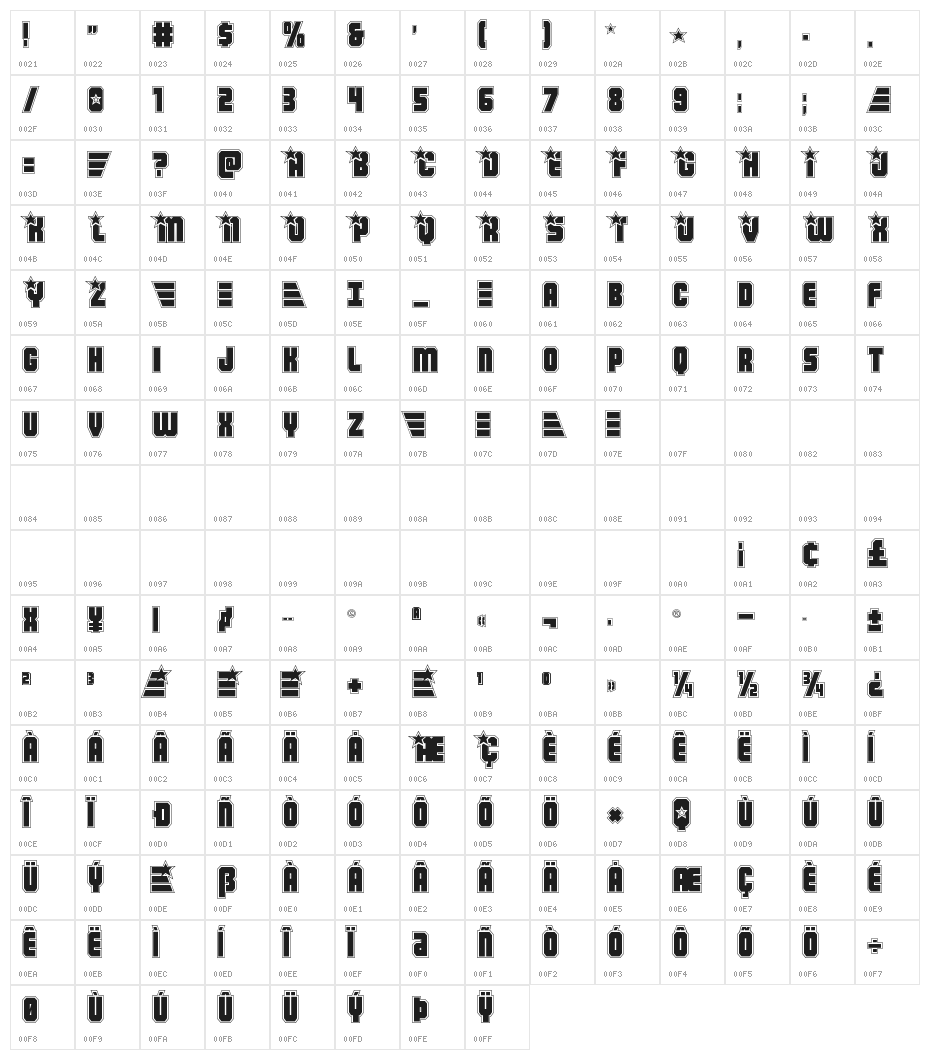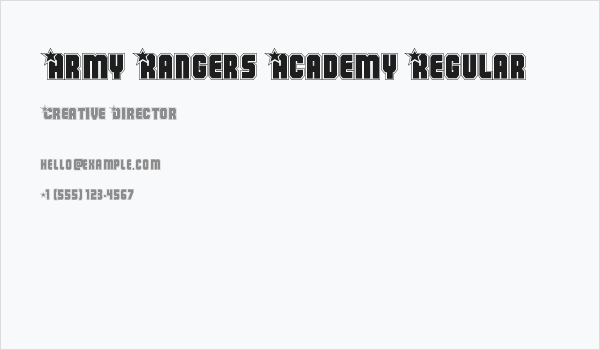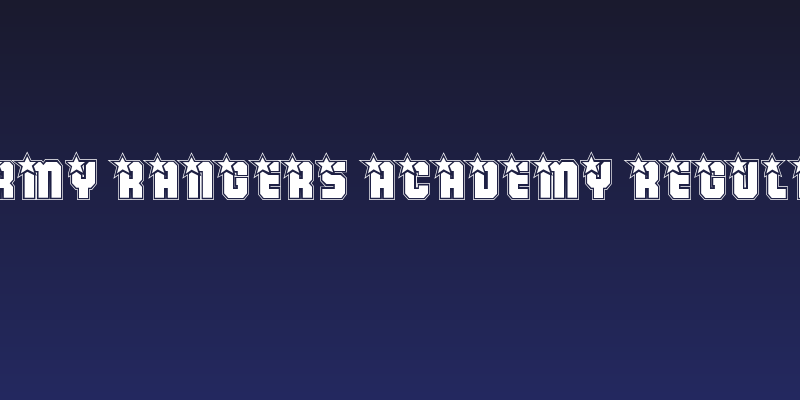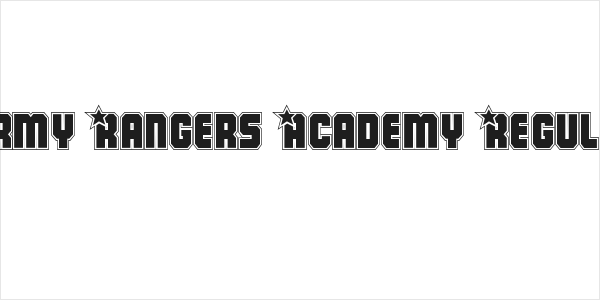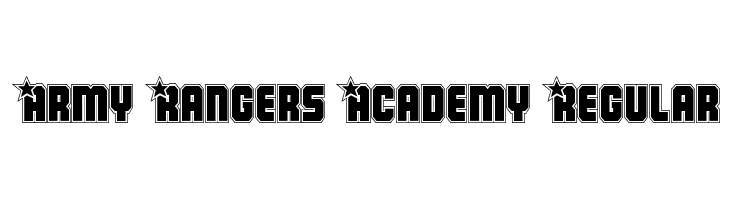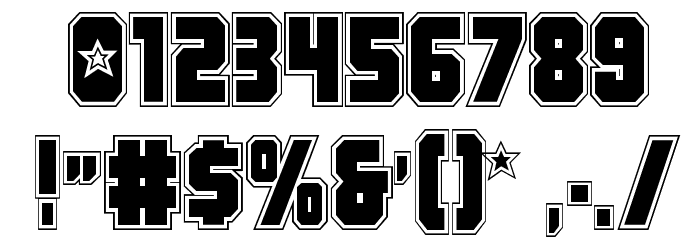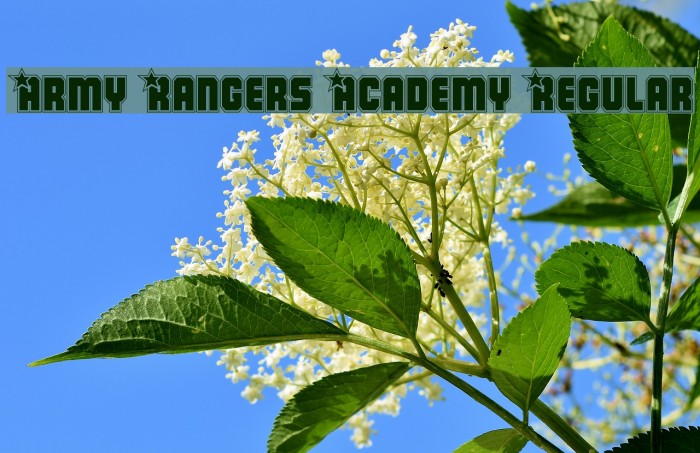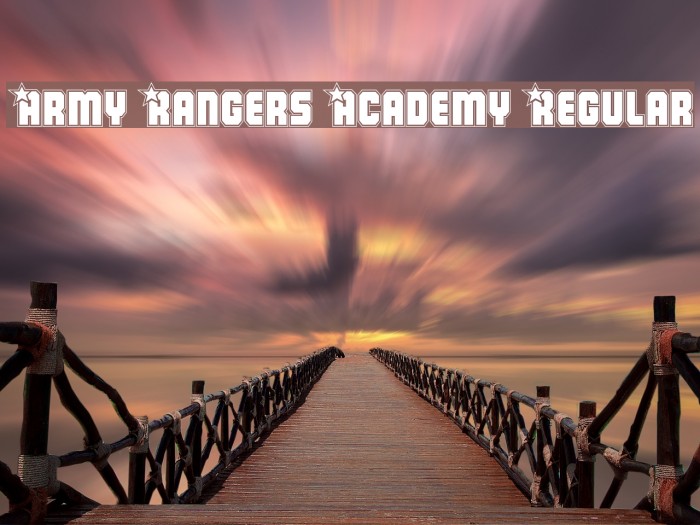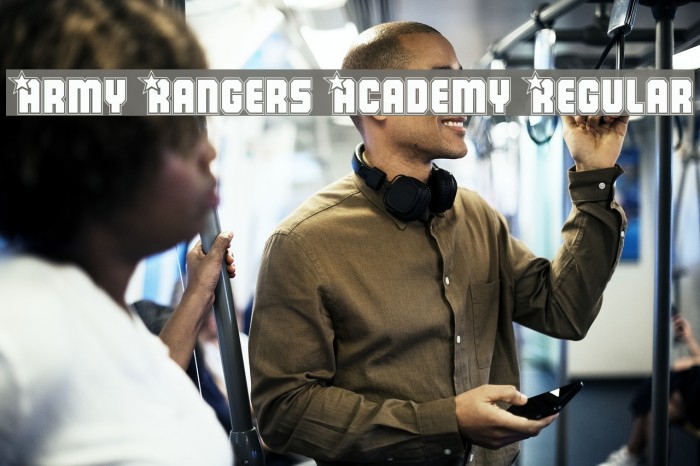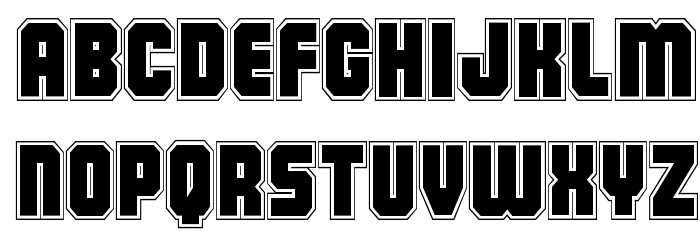
Army Rangers Academy Regular Font
Army Rangers Academy Regular Description
This font features a bold, blocky design with a strong military-inspired aesthetic. Each character is outlined with a thick border, enhancing its boldness and making it stand out prominently. The uppercase letters are adorned with star motifs, adding a decorative touch that emphasizes the theme. The font maintains a consistent width and height across all characters, ensuring uniformity. The numbers and special characters follow the same robust style, making them suitable for impactful displays. This font is ideal for projects that require a strong, authoritative presence.
| Proposed Projects | Ideal for military-themed posters, video game titles, sports team logos, and event banners. |